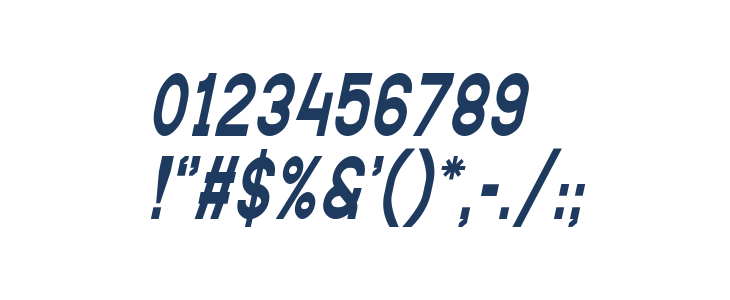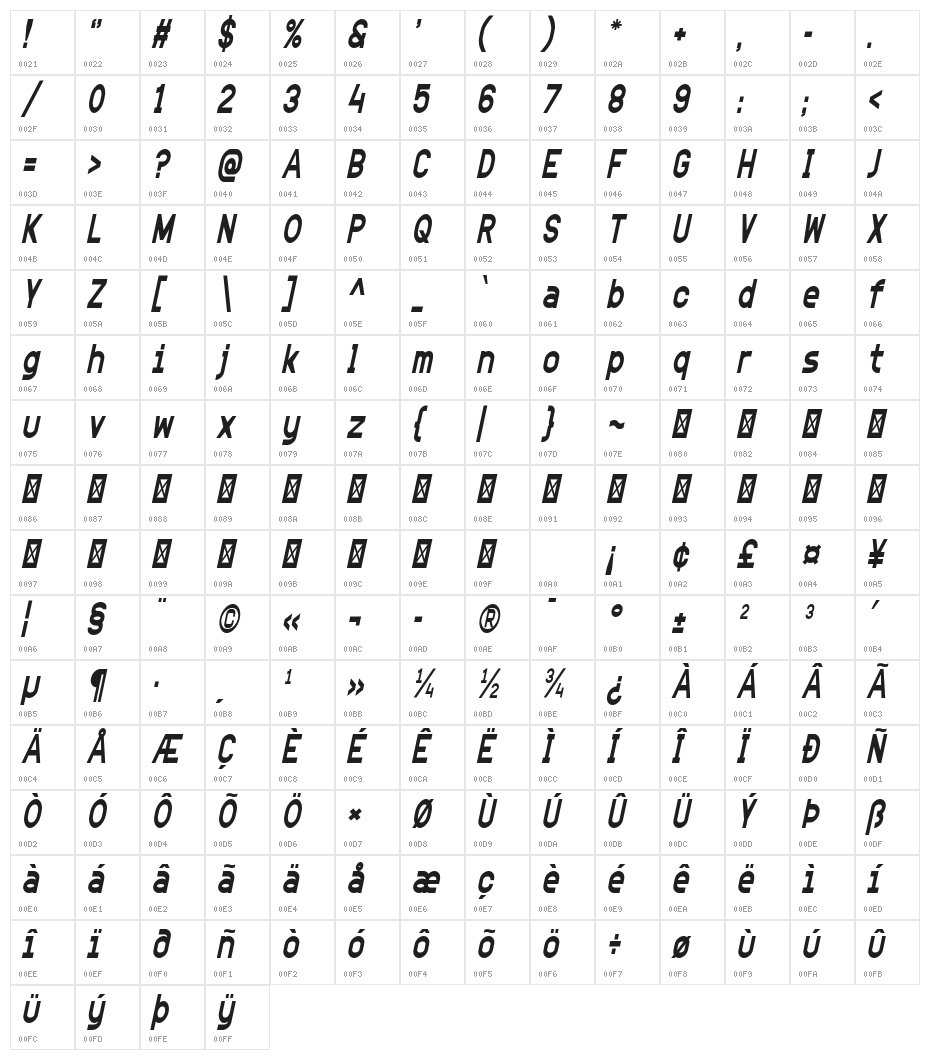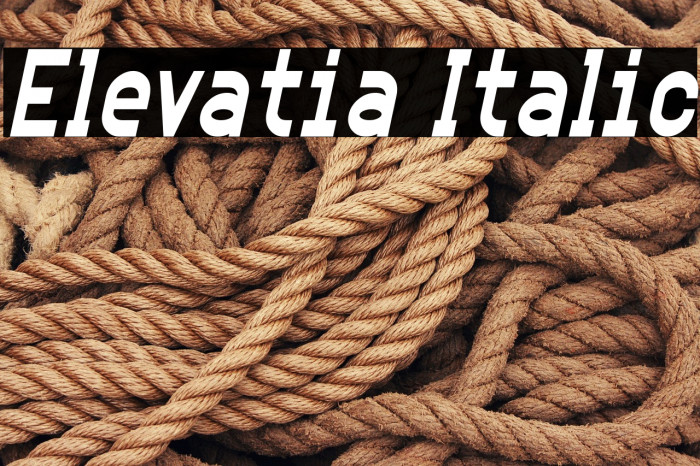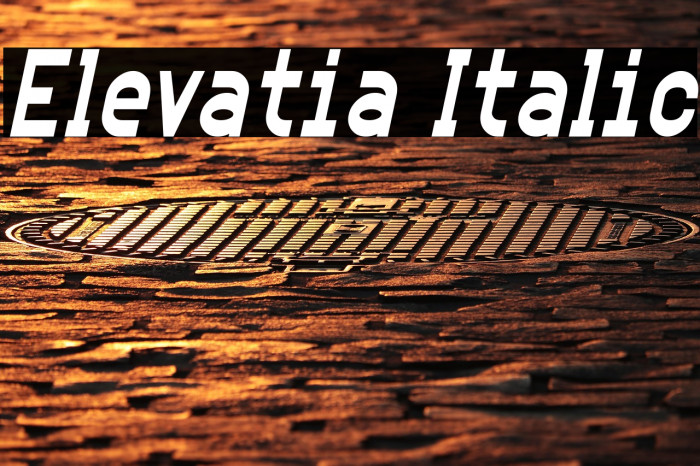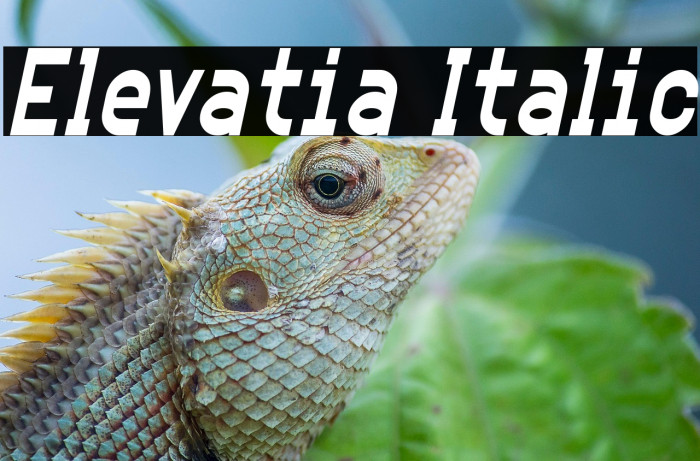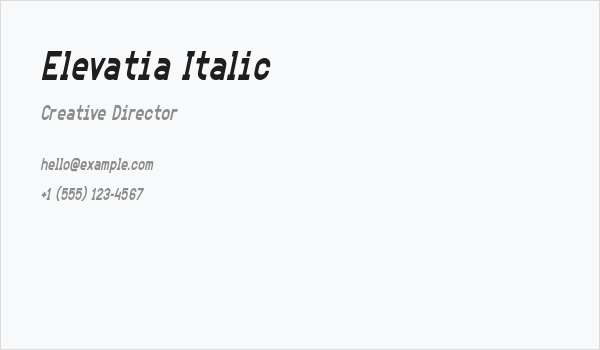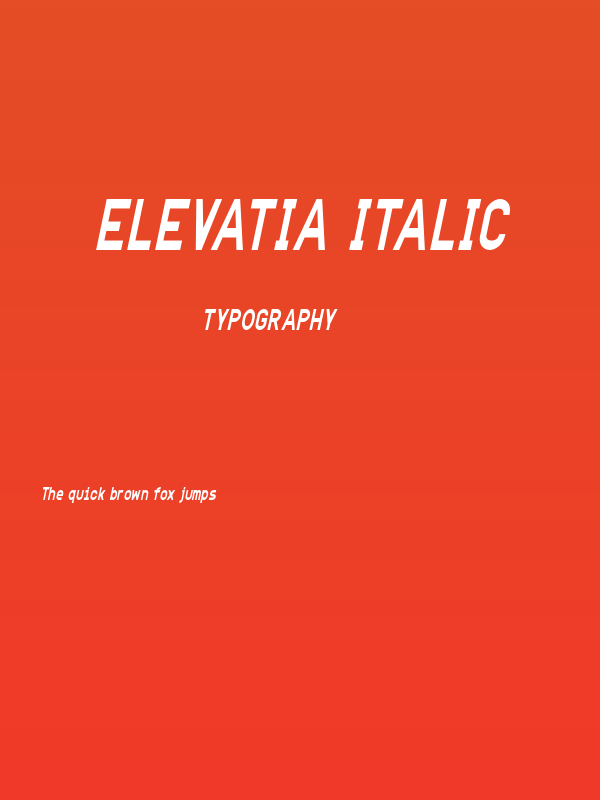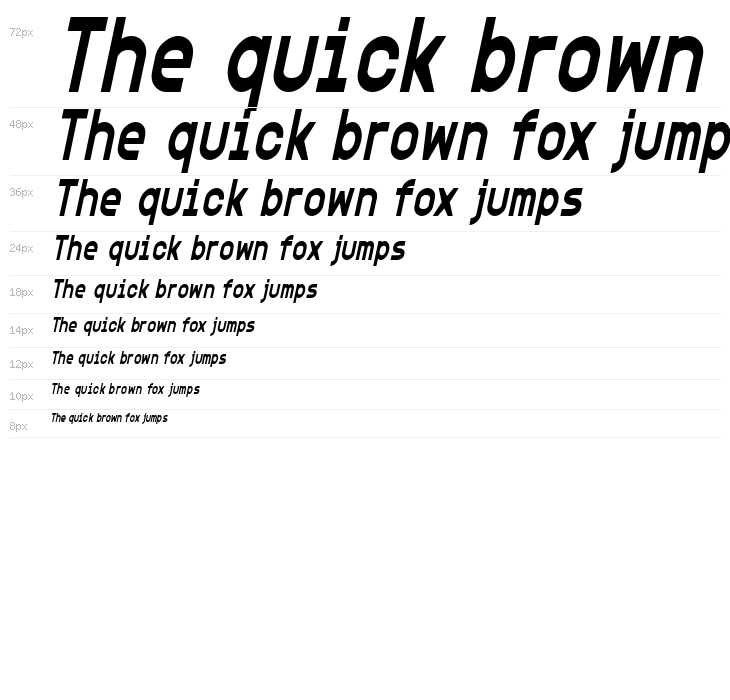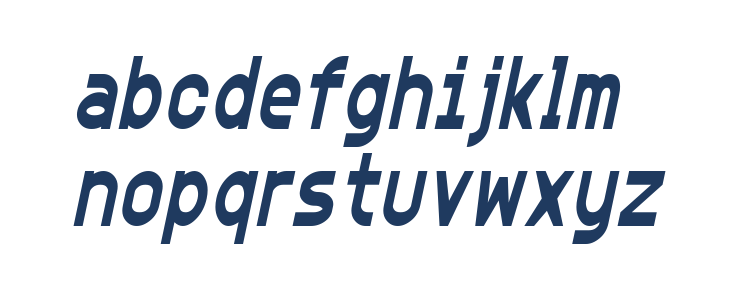
Elevatia Italic Font
Elevatia Italic Description
This font presents a sleek and modern aesthetic with a distinct italic slant, enhancing its dynamic and forward-moving appearance. The characters are well-defined with a consistent stroke width, providing a clean and professional look. The uppercase and lowercase letters maintain a harmonious balance, while the numerals and special characters are crafted to complement the overall style. The font's design is versatile, making it suitable for various applications where a contemporary and stylish impression is desired.
| Use Case | Headlines, Logos, Advertising |
| Proposed Projects | Ideal for branding, advertising, and editorial design where a modern and stylish look is essential. |